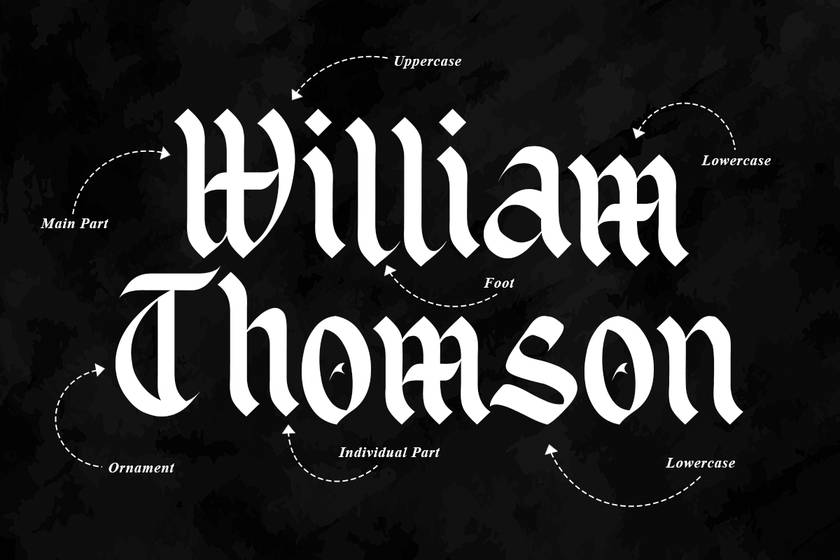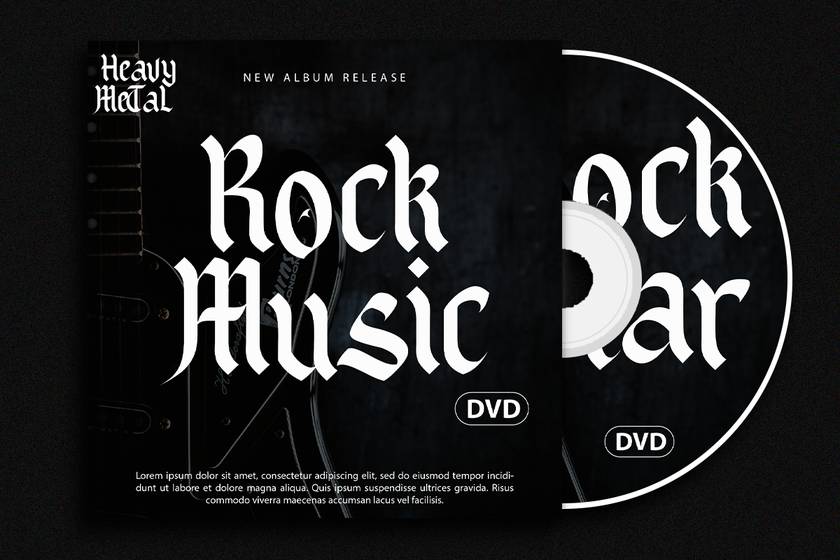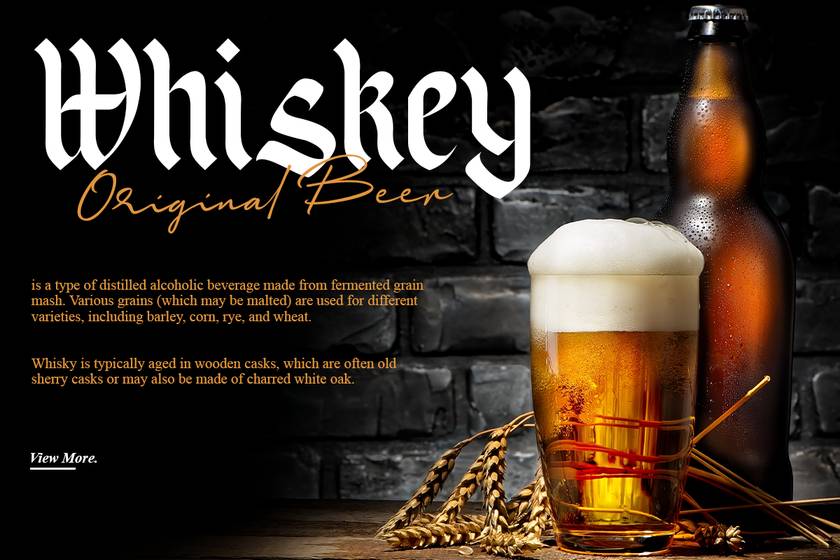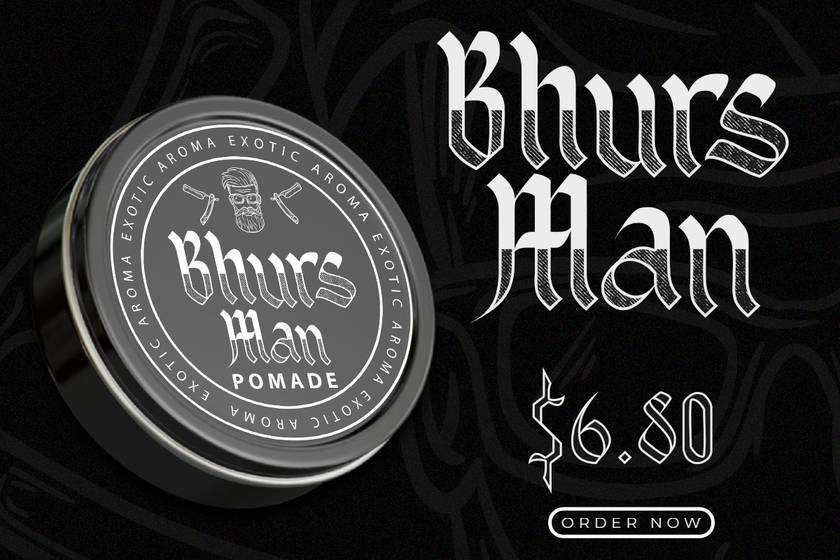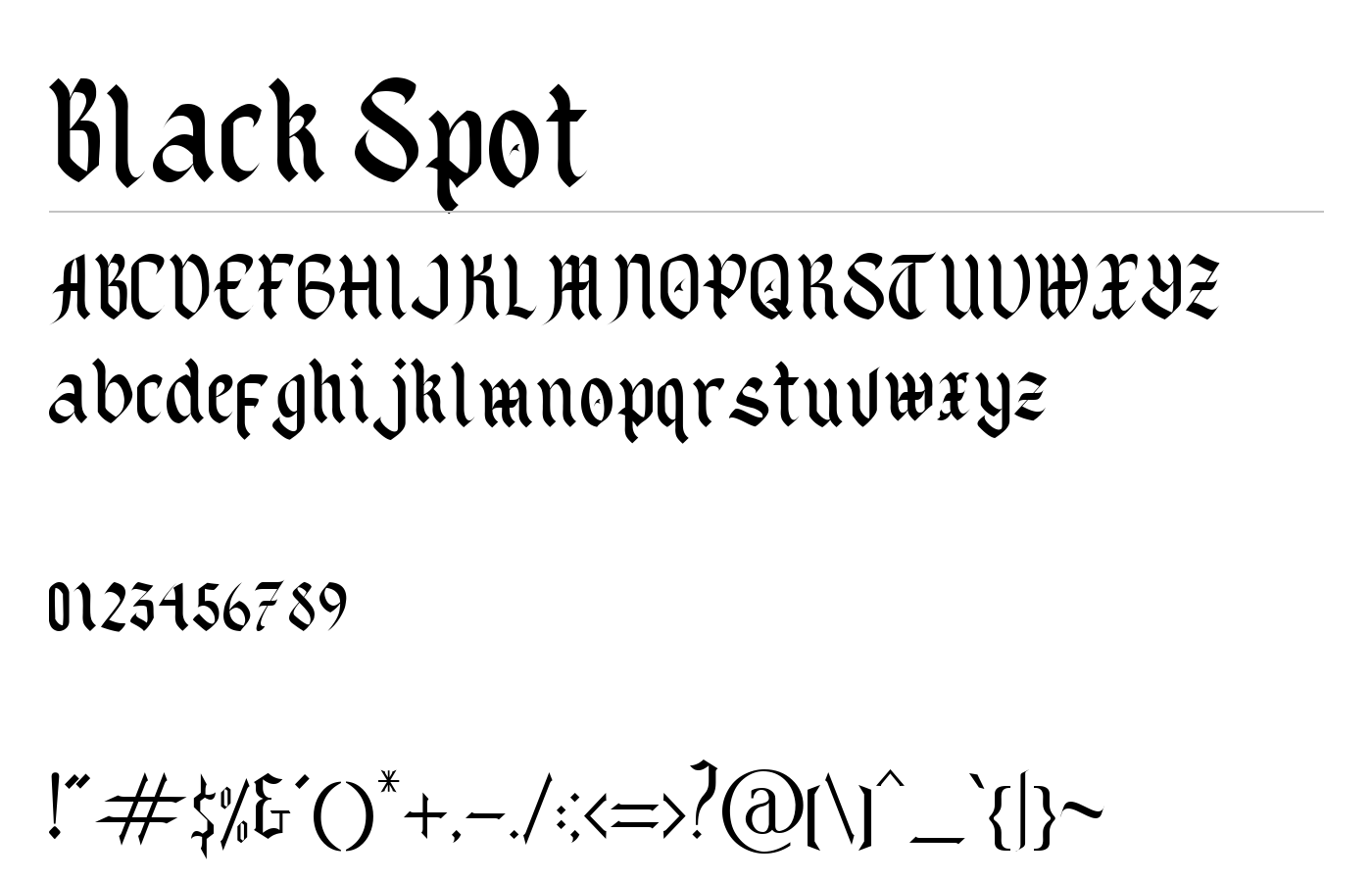
Black Spot is a bold blackletter font that features sharp, dramatic strokes and a distinctive Gothic style with pointed serifs and high contrast between thick and thin lines. Its medieval-inspired letterforms carry a strong, historical personality, making it ideal for branding or designs that seek a vintage, mysterious, or authoritative vibe. This font works especially well in logos, posters, and headlines where a striking and unique impression is desired.
Black Spot Font
About Black Spot Font